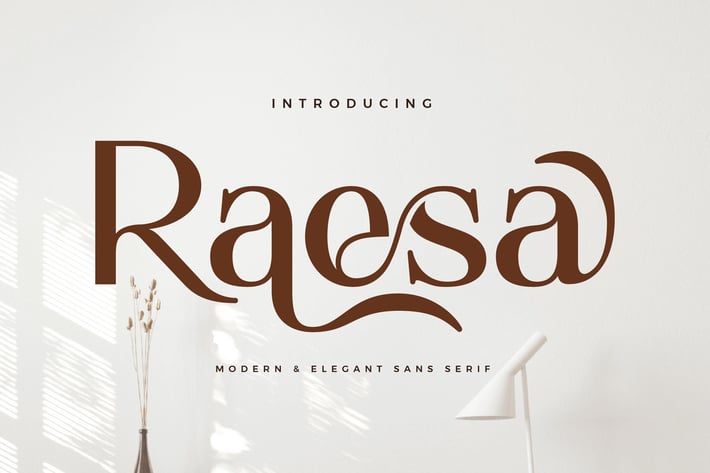
Raesa - Modern Ligature Font
Aqeel-Art
Raesa Sans Font Typeface inspired by the famous minimalist logo perfect for the purposes of designing templates, brochures, videos, advertising branding, logos, invitation, layout design, elegant crafting, beauty design and other.